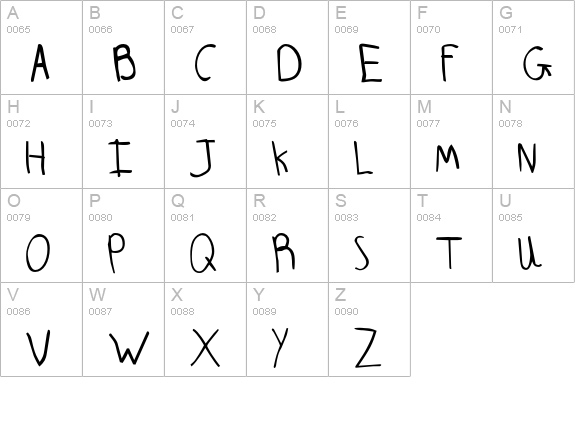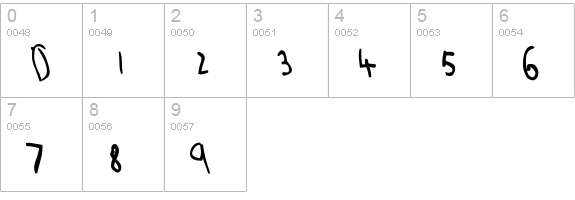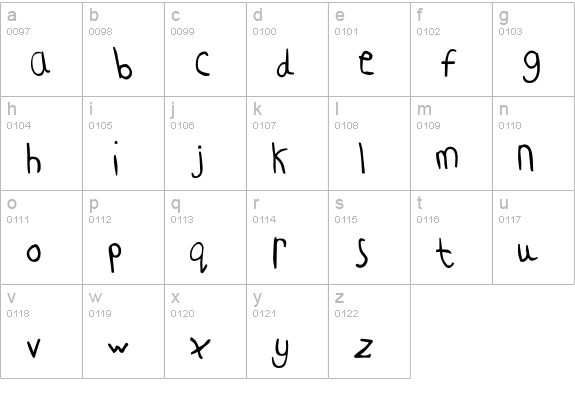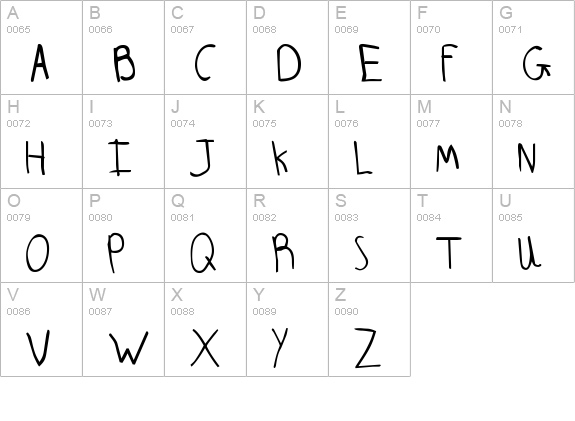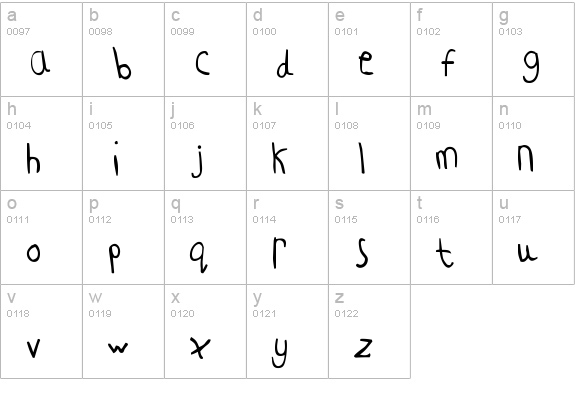
ChildsPlay-AgeEight Font Details
ChildsPlay-AgeEight font is a whimsical and playful typeface perfect for adding a touch of fun to your projects. This font exudes a sense of childlike innocence and creativity, making it ideal for designs aimed at a young audience or those looking to inject a sense of playfulness into their work. The hand-drawn style of ChildsPlay-AgeEight font gives it a unique and charming appeal that is sure to stand out. Best of all, ChildsPlay-AgeEight font is available for free download at FontsMarket.com. This means you can easily access and use this delightful font in your designs without any cost involved. So why not add a sprinkle of joy and whimsy to your next project with ChildsPlay-AgeEight font? Download it today and let your creativity run wild!